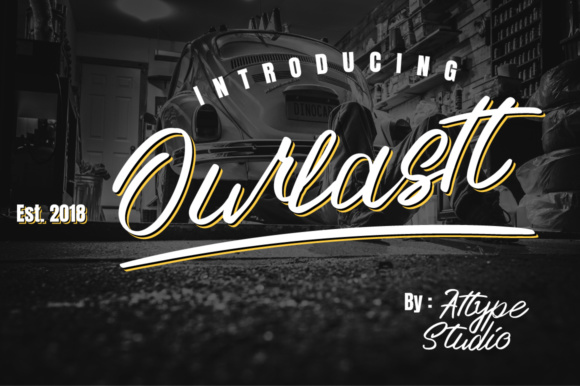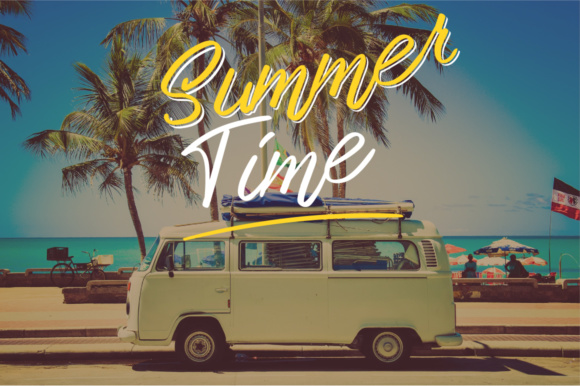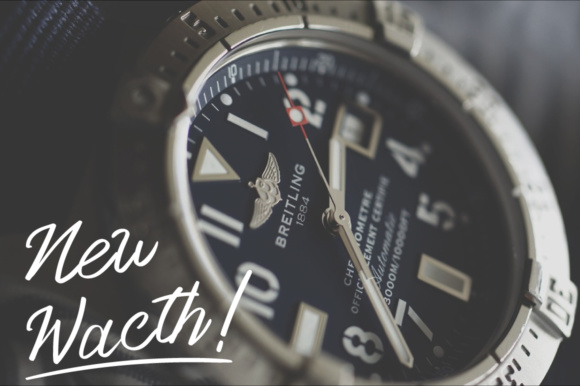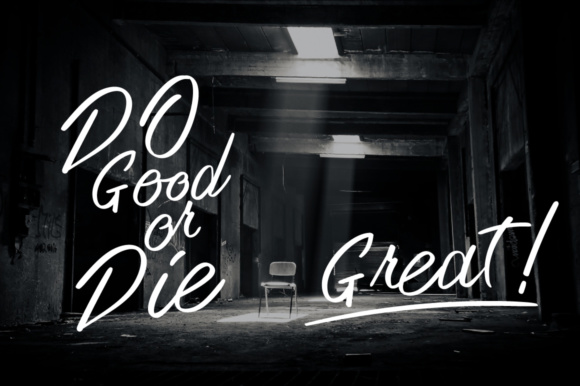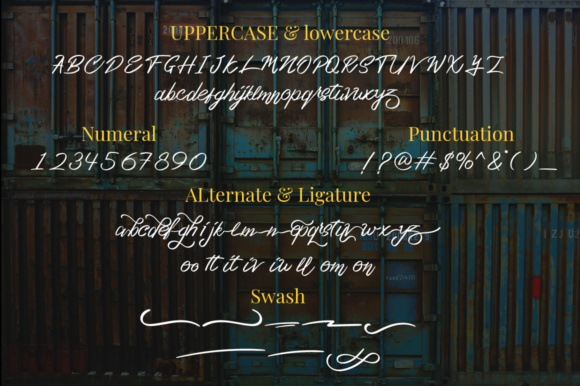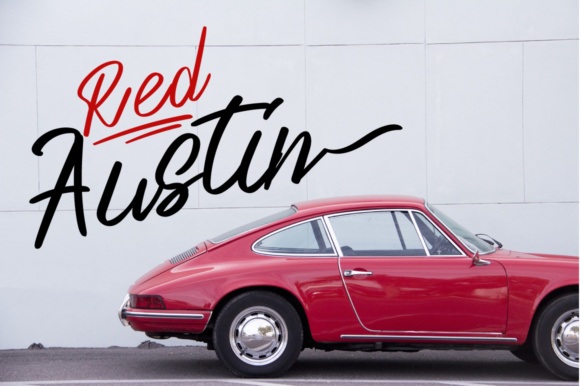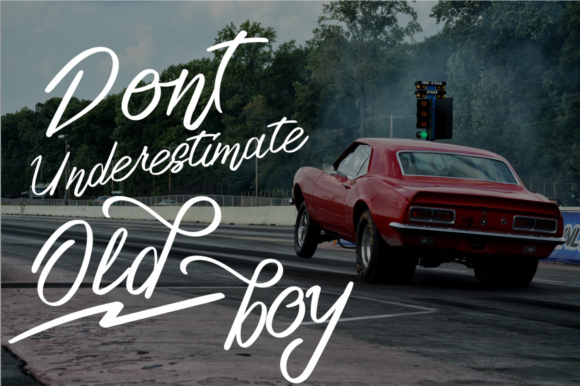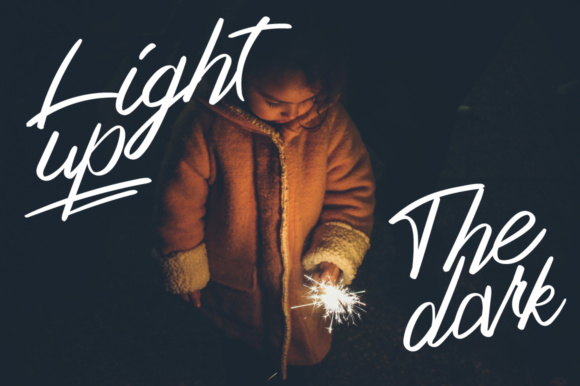
Ourlastt Font
About Ourlastt Font
The Ourlastt is a modern hand lettering script with dramatic movement. Its two styles are allowing you to create beautiful hand-made typography.
Ourlastt is perfect for branding, logos, wedding designs, social media posts, advertisements, product packaging and more!